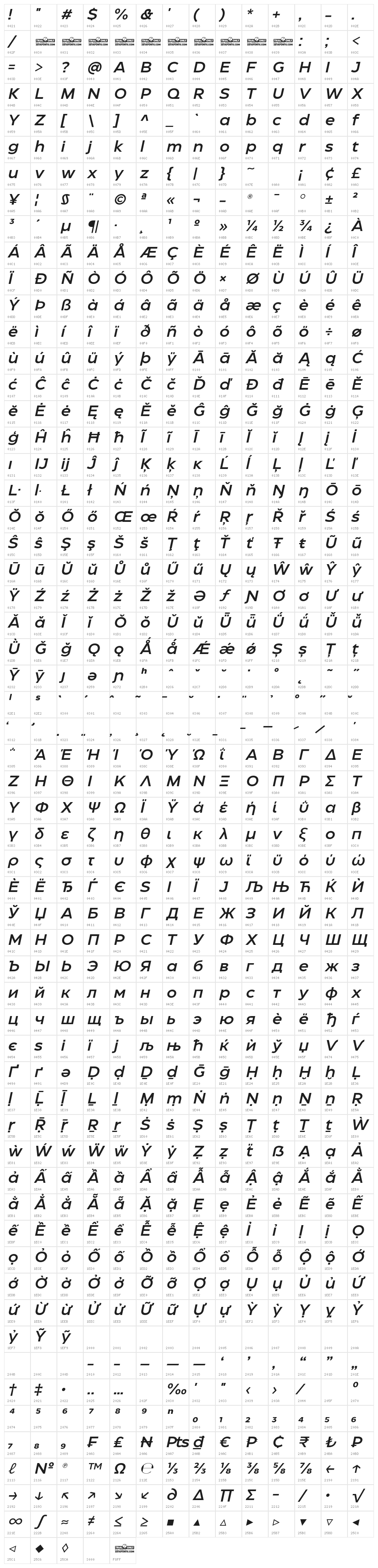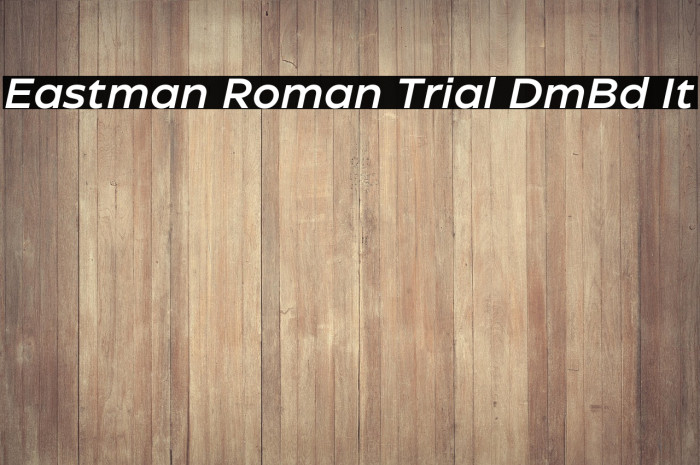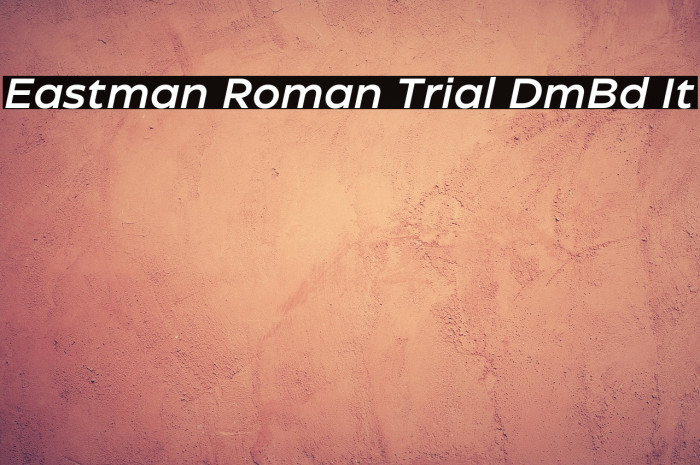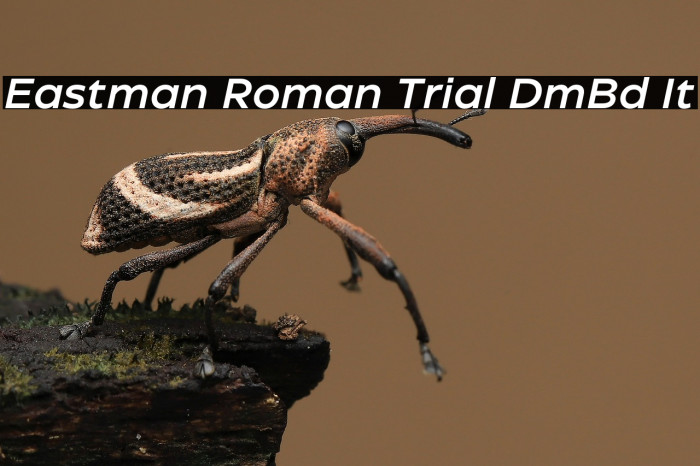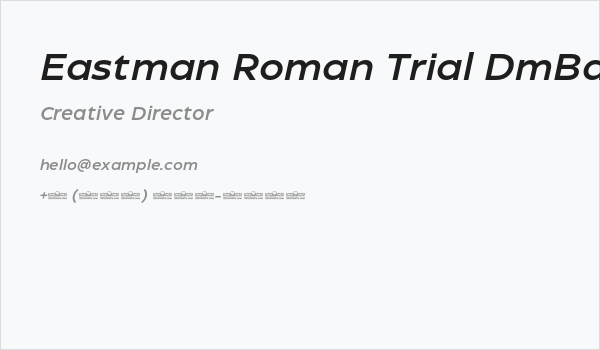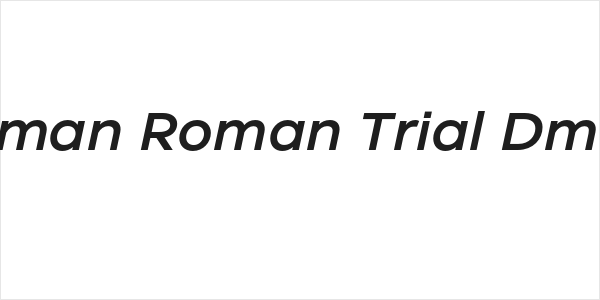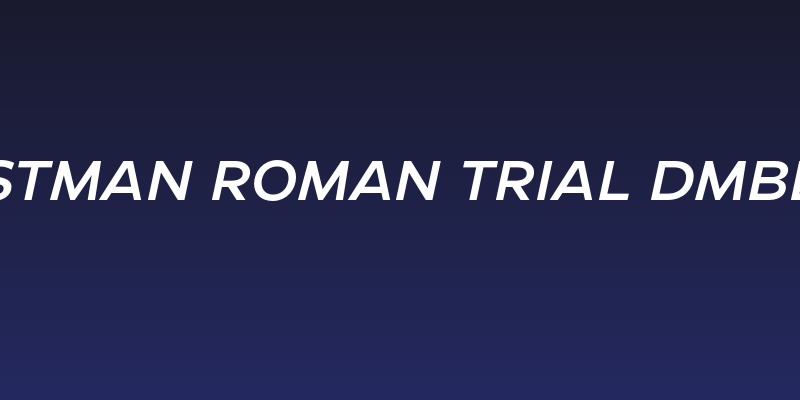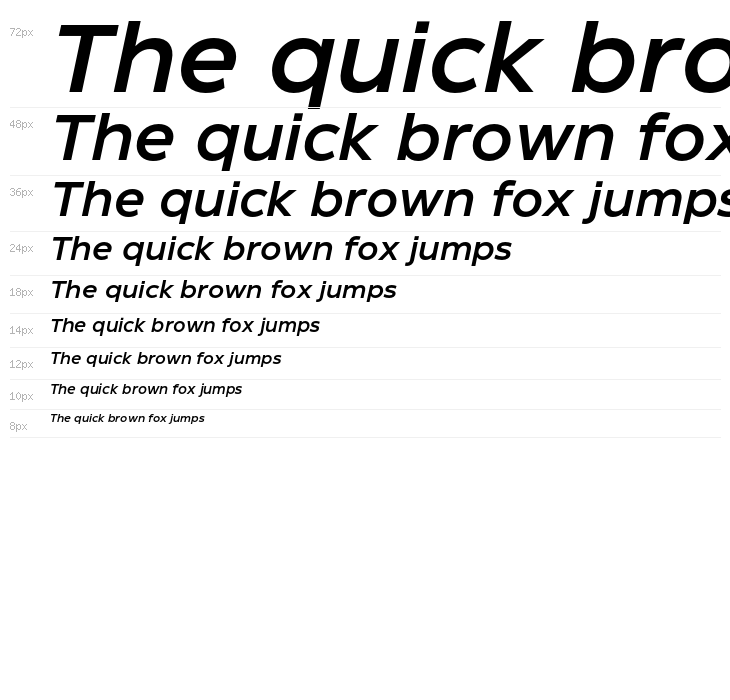
Eastman Roman Trial DmBd It Font
Eastman Roman Trial DmBd It Description
This font features a modern sans-serif style with a clean and sleek appearance. The characters are slightly italicized, giving a sense of motion and dynamism. The strokes are consistent in thickness, providing a medium contrast that enhances readability while maintaining a stylish look. The overall design is contemporary, making it suitable for various digital and print applications. The character spacing is normal, ensuring clarity and legibility across different sizes and contexts. This font is versatile and can be used effectively in both professional and creative projects.